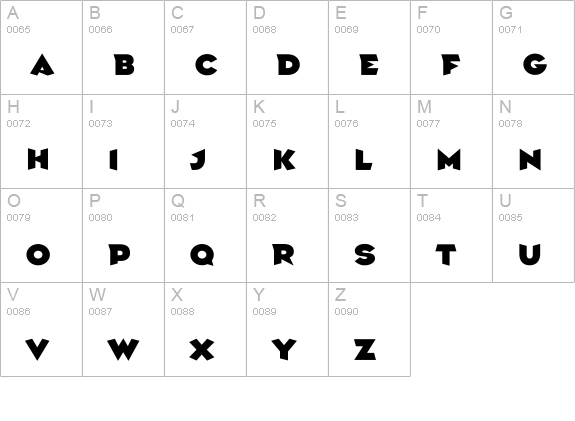
Griffin-Black is a maximum-weight, dramatic variant in the Griffin typeface family \xE2\x80\x94 well suited to maximum-impact headlines, posters, and packaging.
Griffin-Black is a bold and striking font that exudes elegance and sophistication. Its sharp edges and clean lines make it perfect for making a statement in any design project. The strong presence of Griffin-Black font commands attention and gives a modern touch to any text it is applied to. The best part about Griffin-Black font is that it is completely free to download at FontsMarket.com. This means that you can enhance your projects with this stylish font without any cost. Whether you are working on a poster, logo, website, or any other creative endeavor, Griffin-Black font will add a touch of professionalism and flair. Don't miss out on the opportunity to elevate your designs with this exceptional font that is just a download away.